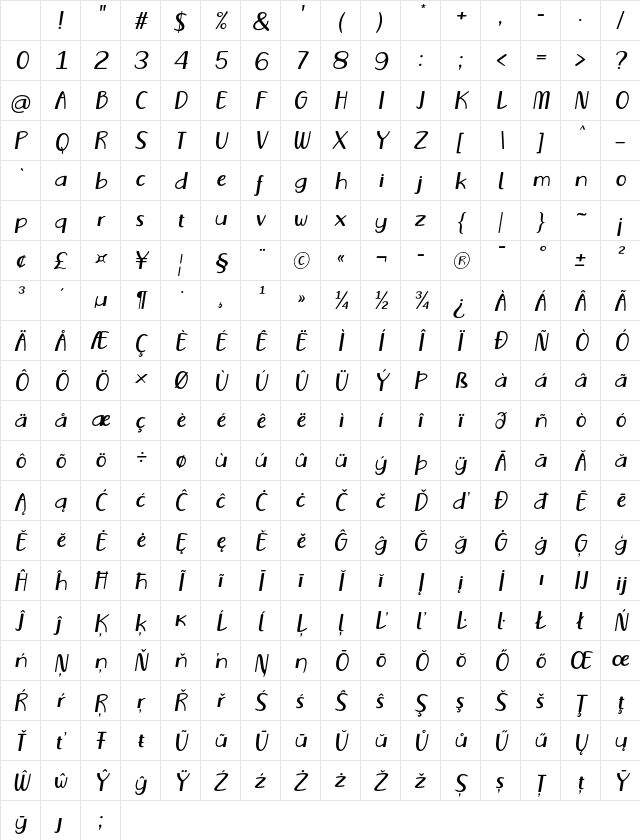
Complete Vecoly Italic glyph index. Displaying only characters natively supported by Vecoly Italic font.
Vecoly is a composed and adaptable typeface that performs quietly and consistently across a wide range of design contexts. The slanted form adds forward momentum and visual energy.
Pro Tip: Use Vecoly for emphasis, pull quotes, and subheadings where its slanted energy can add rhythm to the layout.